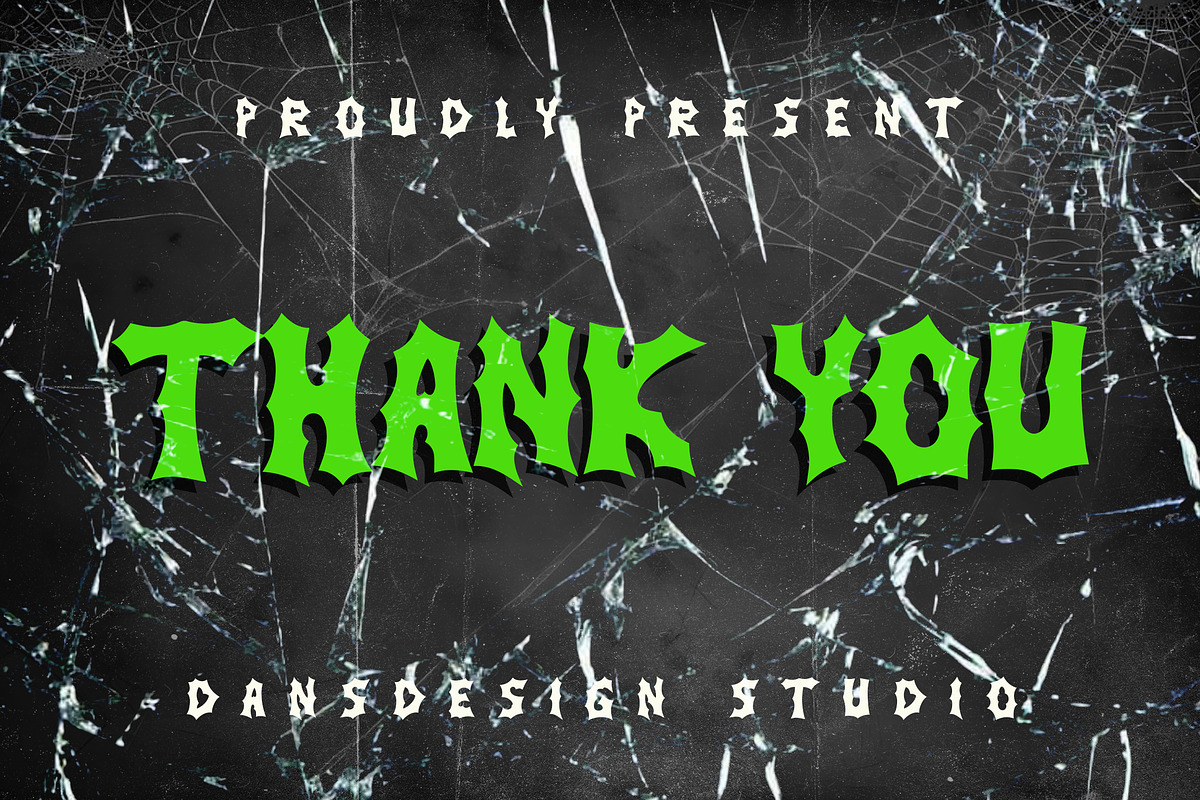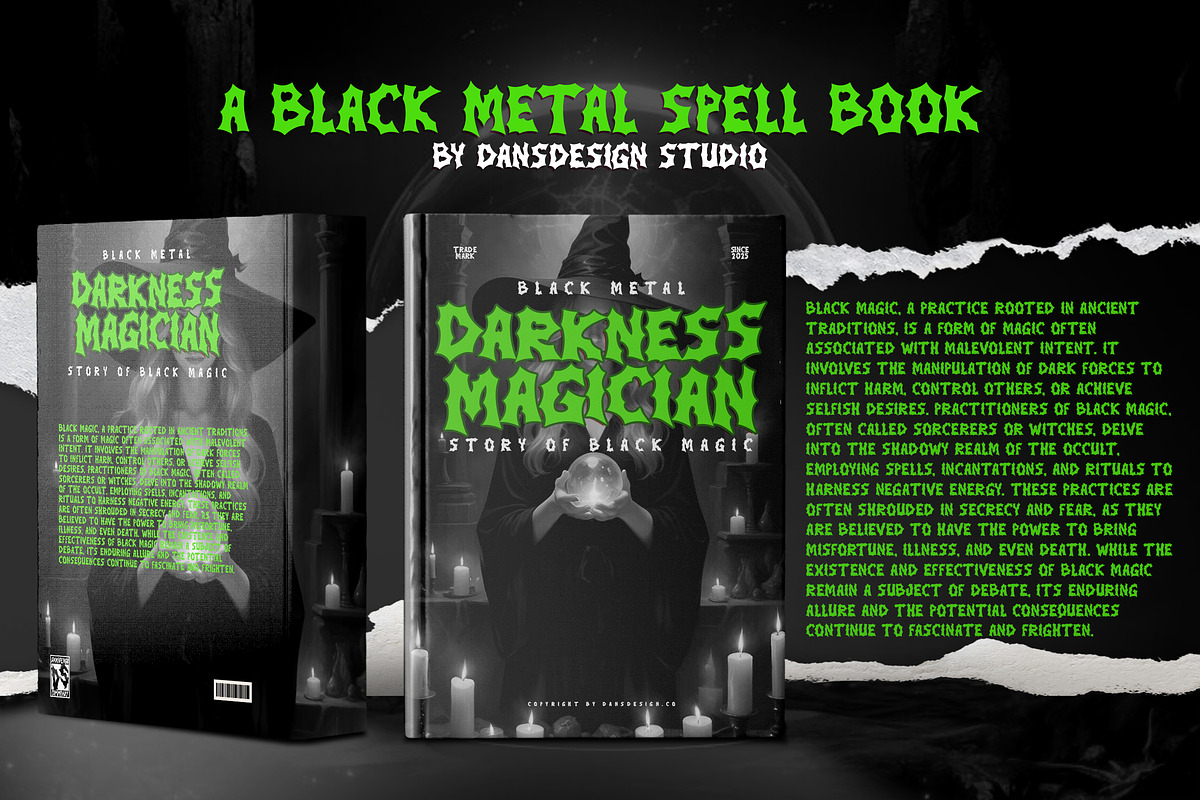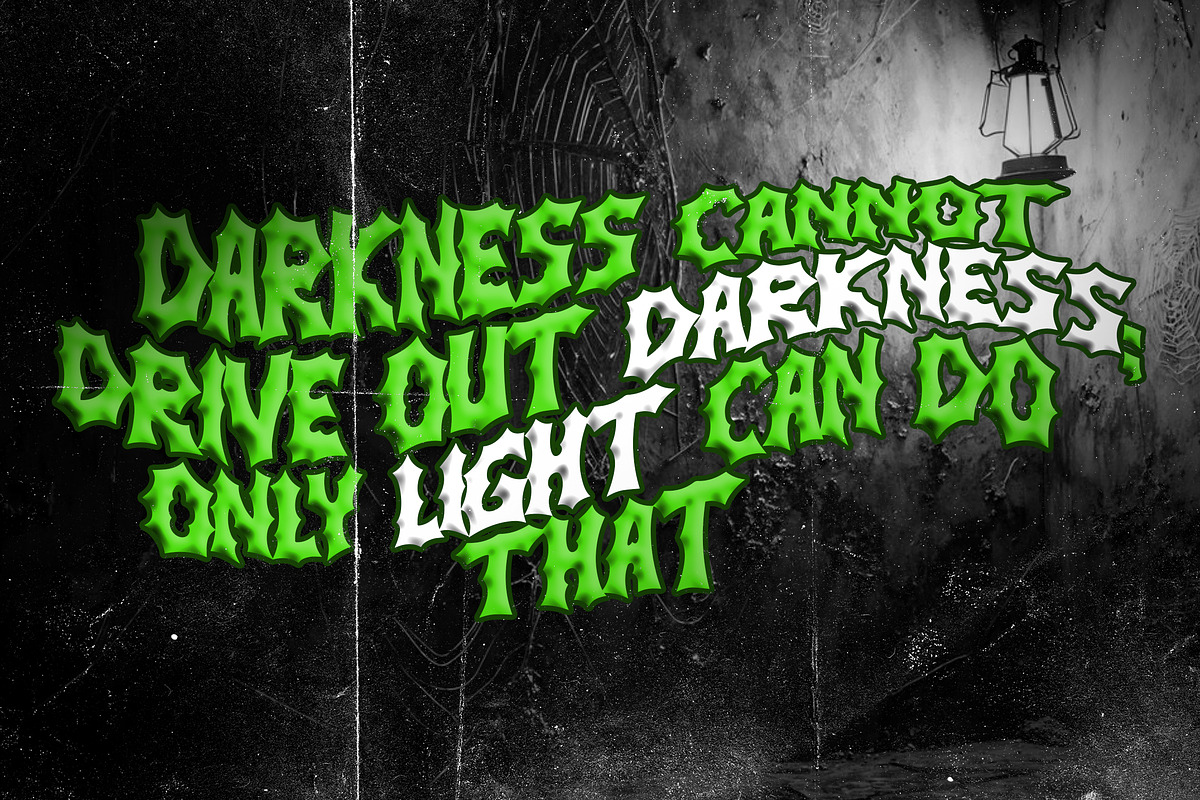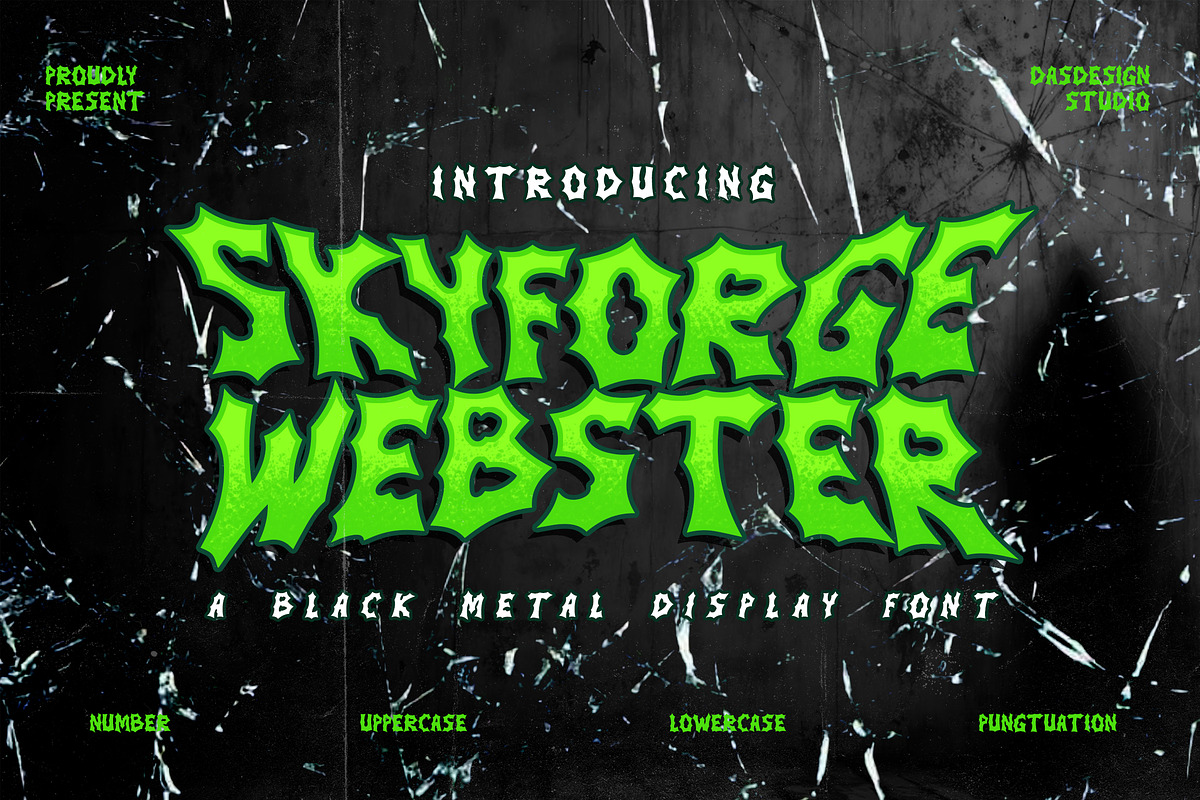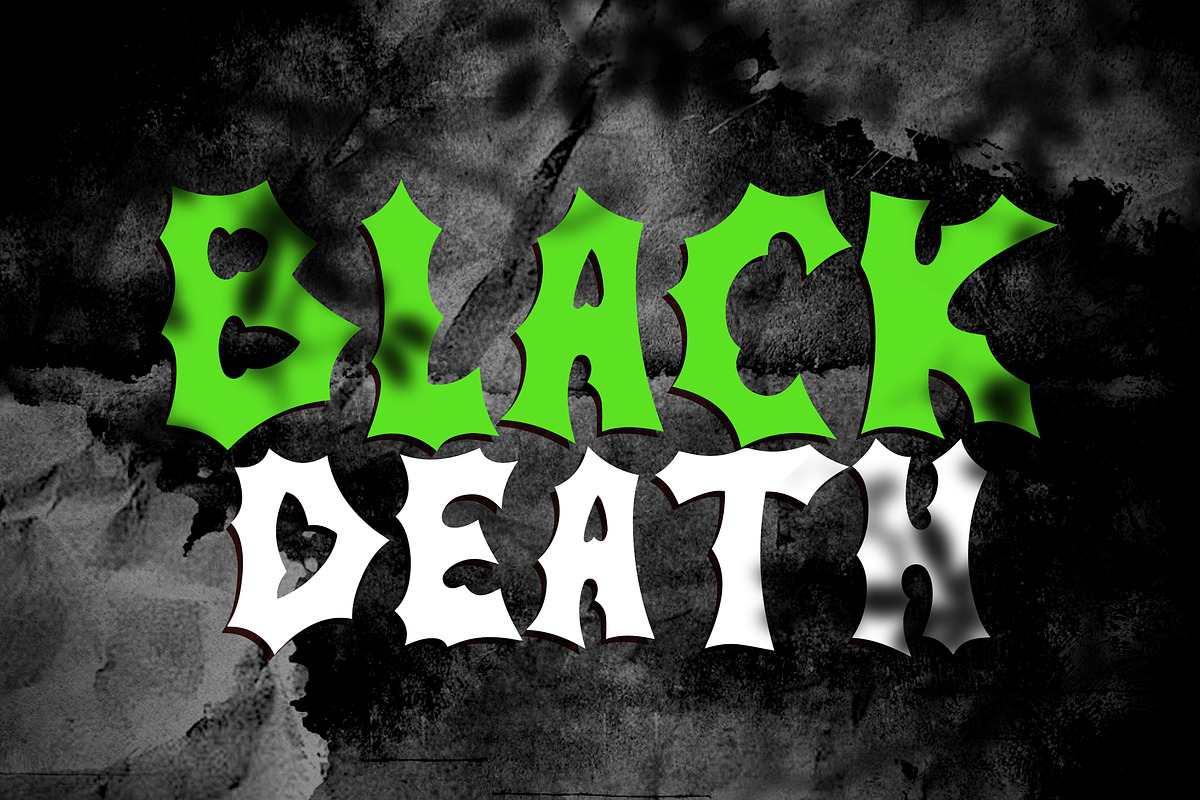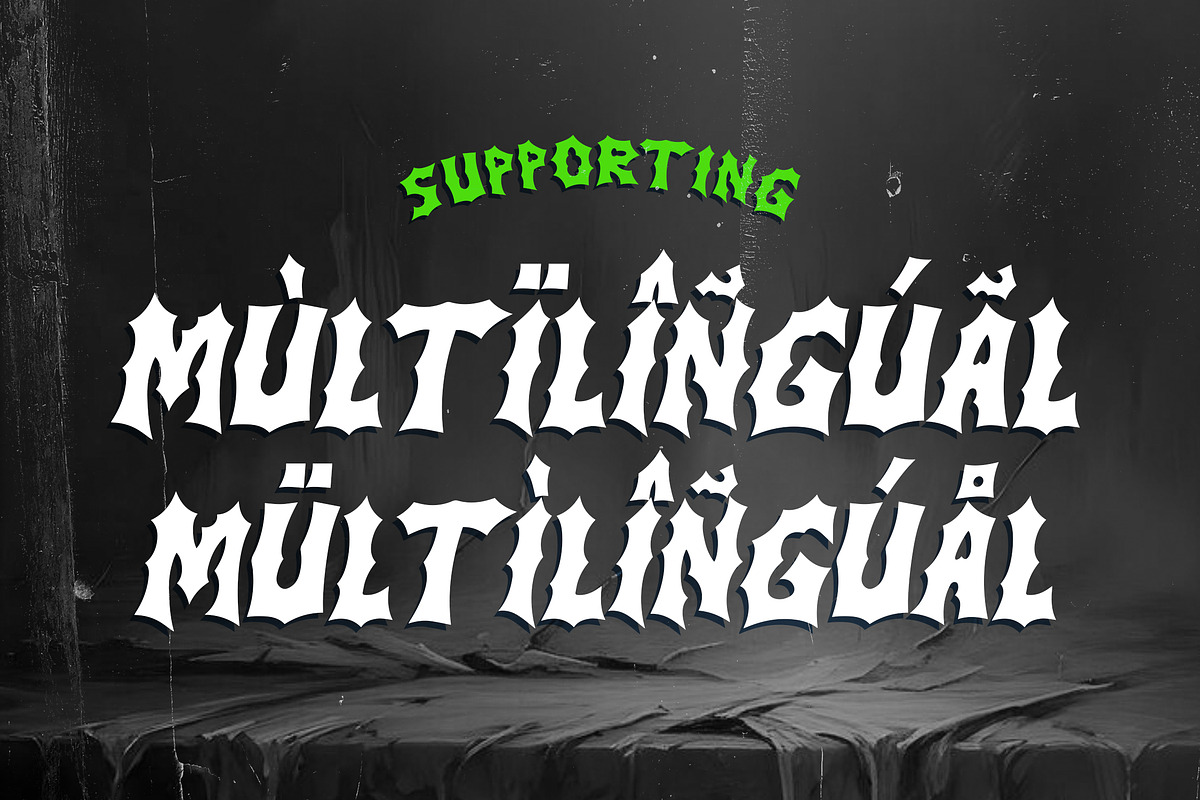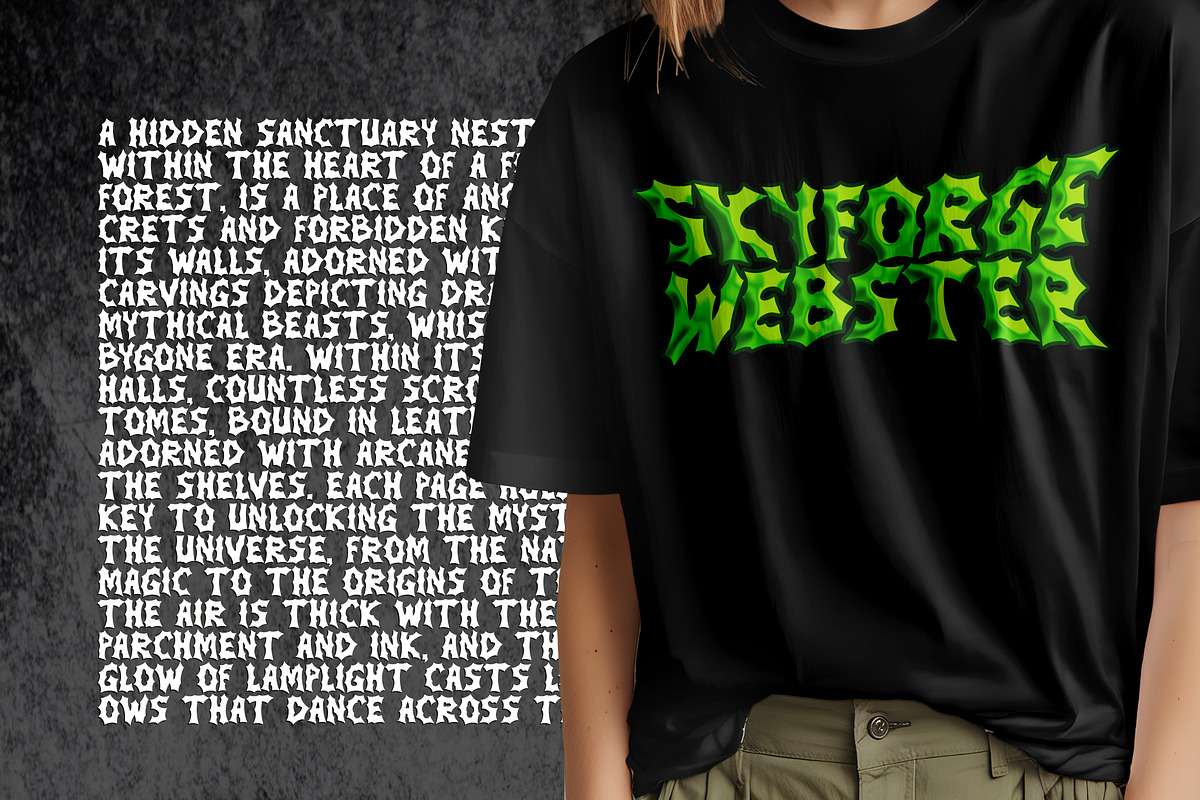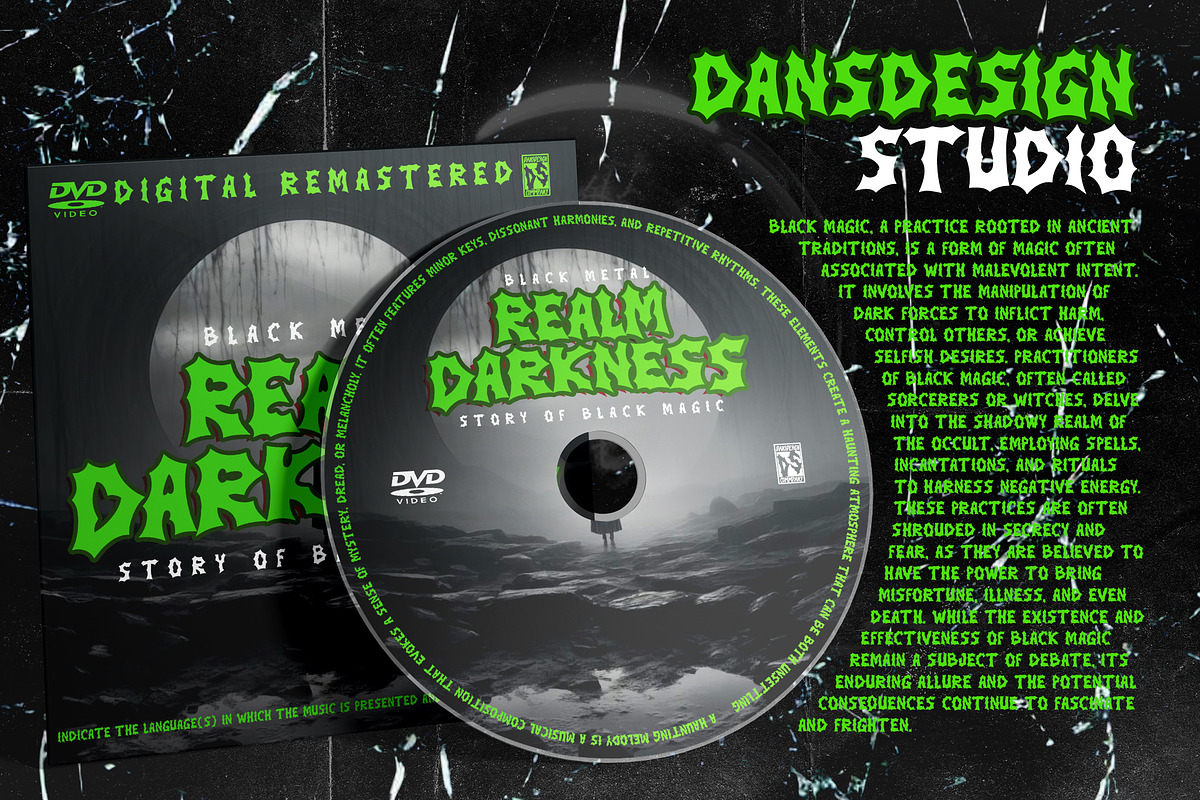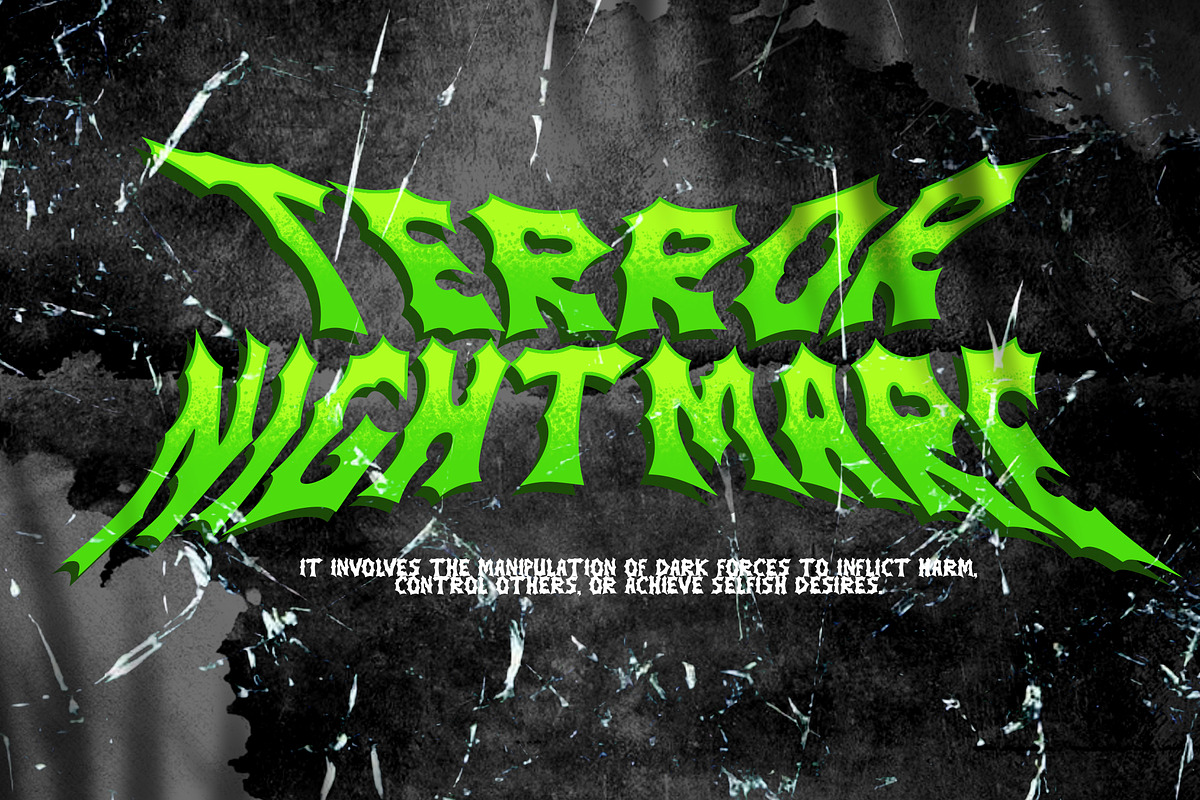
Skyforge Webster Metal Gothic font
Skyforge Webster – Metal Gothic Horror Display Font
Skyforge Webster is a razor-sharp metal gothic horror display font forged for those who design with darkness and rebellion. Combining the menace of black metal aesthetics, the chaos of underground punk, and the mystique of gothic lettering, this font slices through the ordinary and demands attention.
Each glyph is meticulously crafted with jagged, high-impact edges and a sinister energy that makes it perfect for black metal band logos, horror-themed posters, tattoo artwork, extreme branding, and dark fantasy visuals. Whether you're designing an album cover, haunted house flyer, or streetwear-style graphic, Skyforge Webster delivers brutal style and intense presence.
Gothic horror styling with sharp metal energy Inspired by black metal, punk rebellion, and underground art Strong display character for bold, aggressive design PUA encoded – compatible with all major design software Includes numerals, punctuation & multilingual support
Black metal and punk band logos Horror posters & Halloween graphics Gothic branding & tattoo-inspired artwork Album covers, and dark fantasy projects
Let your words bleed, scream, and dominate the visual space. Skyforge Webster is more than just a font—it’s your weapon of design destruction.